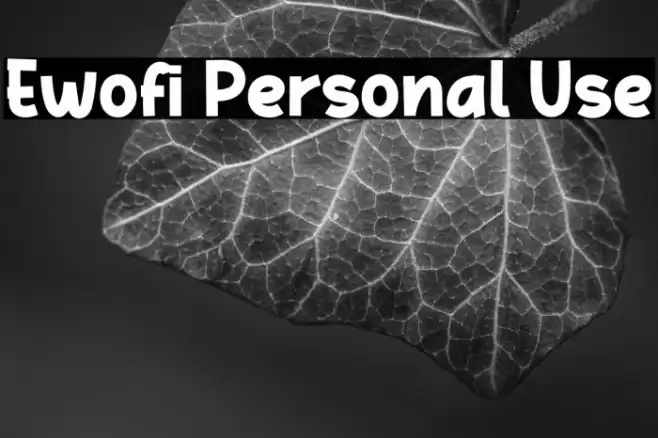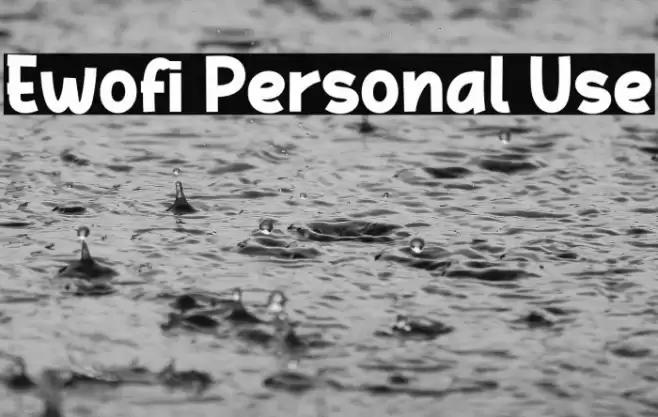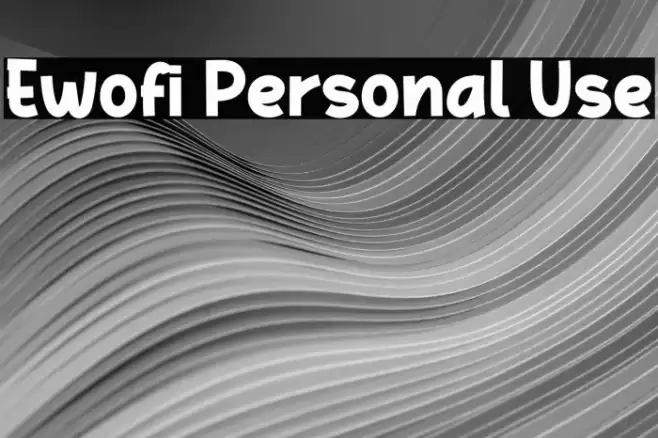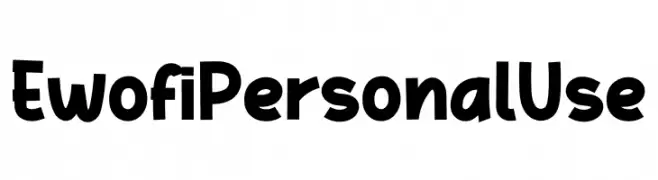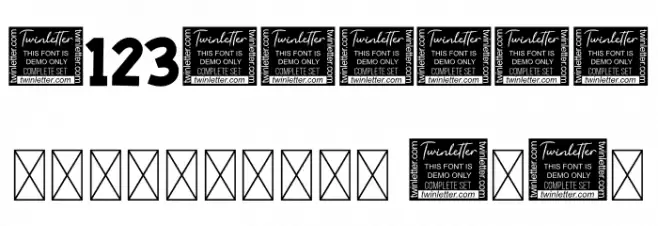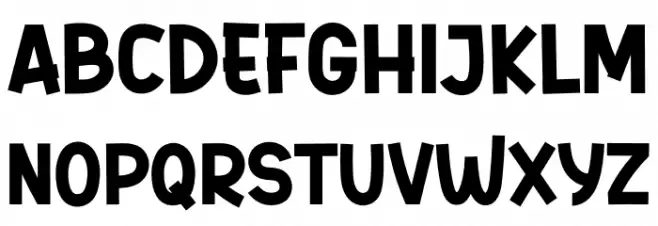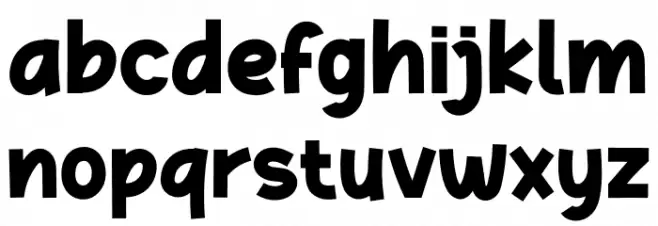
Ewofi Personal Use Font
Ewofi Personal Use Description
This font features a bold and playful style with a hand-drawn appearance. The uppercase letters are robust and slightly irregular, giving a casual and friendly feel. The lowercase letters maintain this playful aesthetic, with rounded edges and a consistent stroke width. The numerals are bold and match the overall style, making them easily readable. The special characters are designed to complement the letters, maintaining the same bold and informal look. This font is ideal for projects that require a fun and approachable tone.
A bold, playful font with a hand-drawn, casual style from Cartoon fonts.
- Proposed Projects: Ideal for children's books, playful branding, posters, and social media graphics.
- Overall Style: Playful, Casual